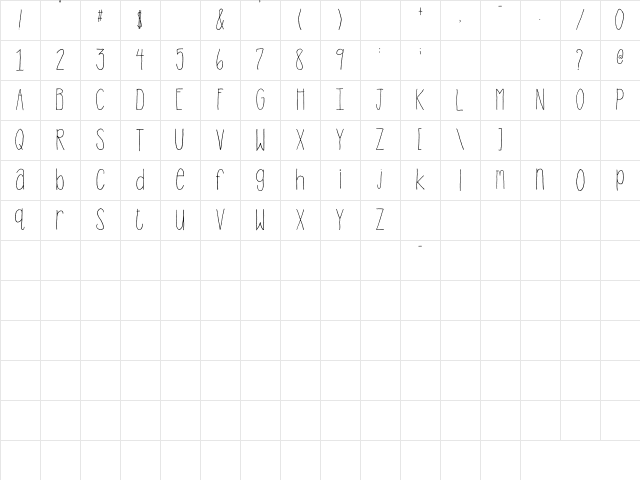
2Peas Stand Tall 2Peas Stand Tall Free Font
Foundry: Two Peas in a Bucket
Designer: designed by Melissa Baxter
Design Context for 2Peas Stand Tall
2Peas Stand Tall is a composed and adaptable typeface that performs quietly and consistently across a wide range of design contexts.